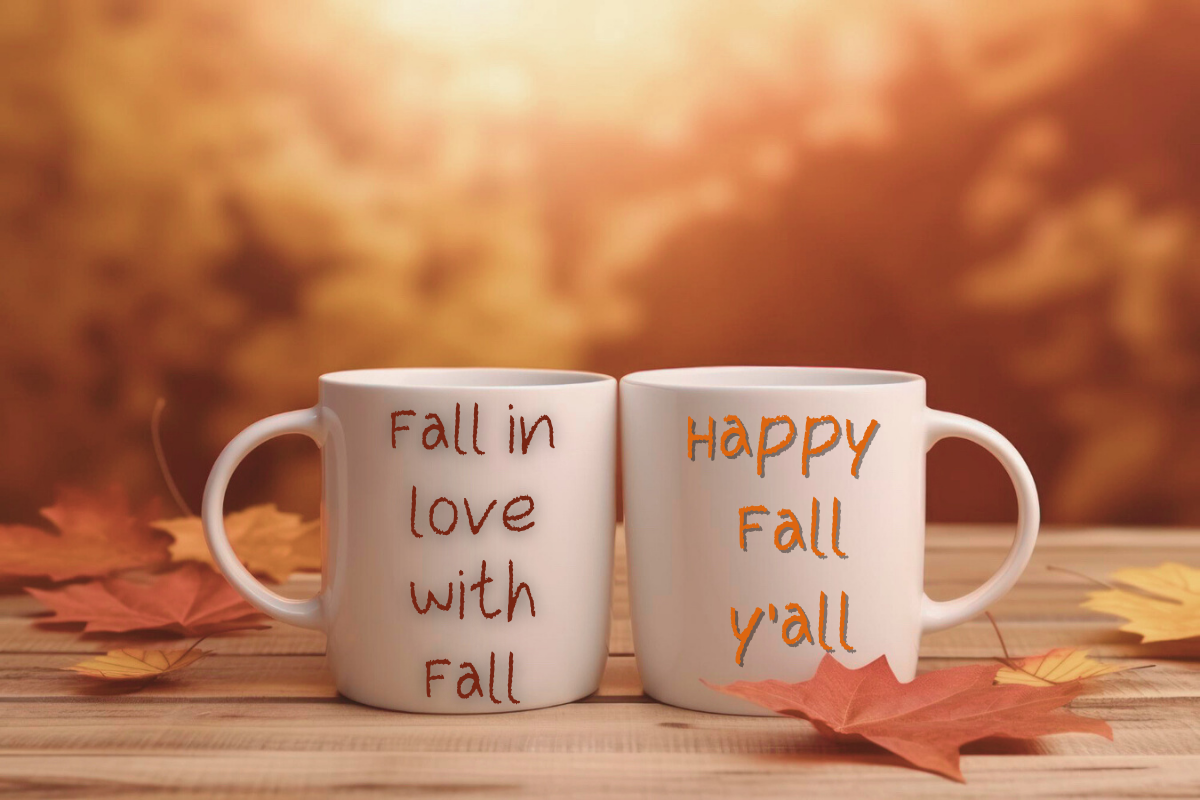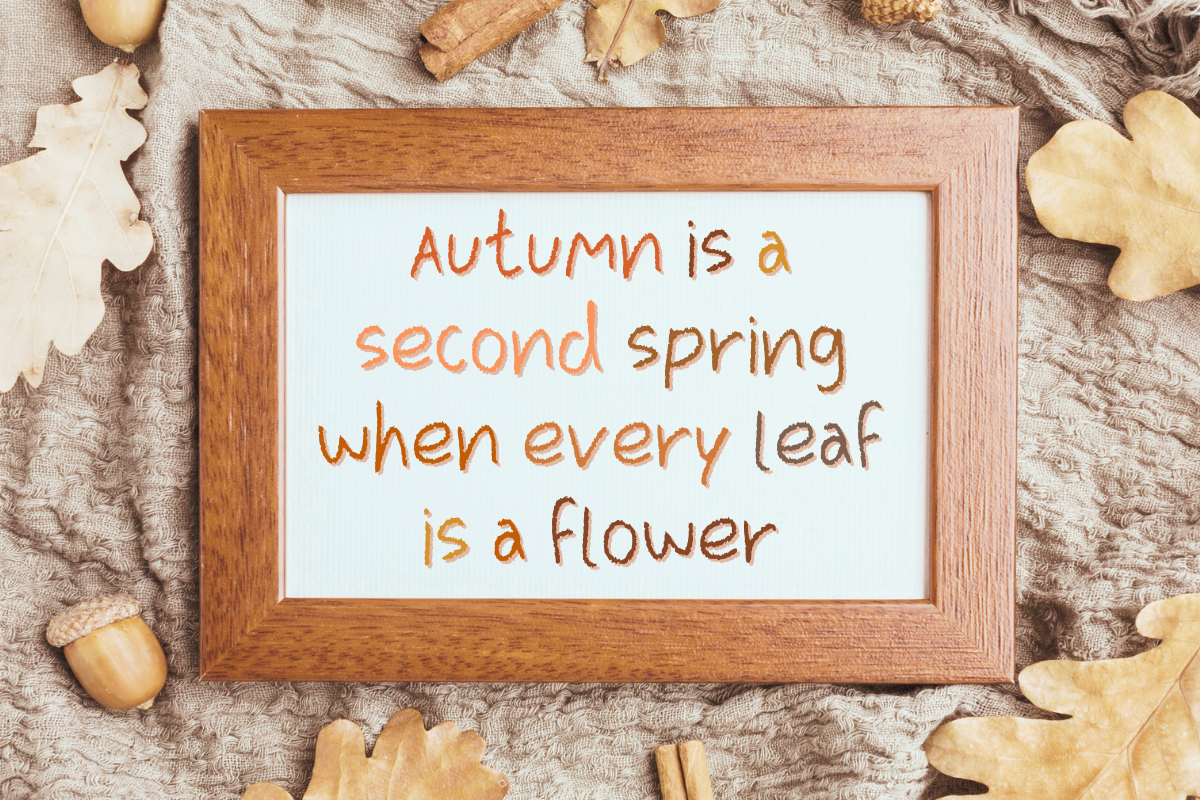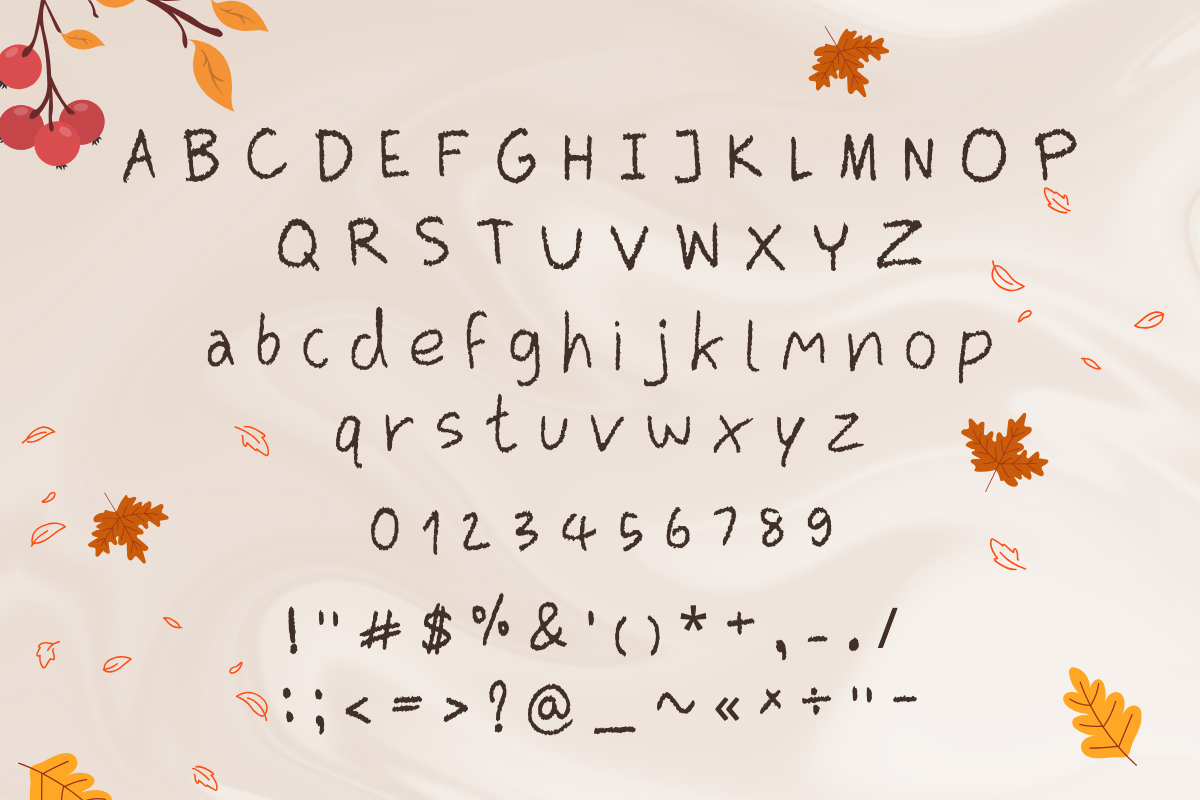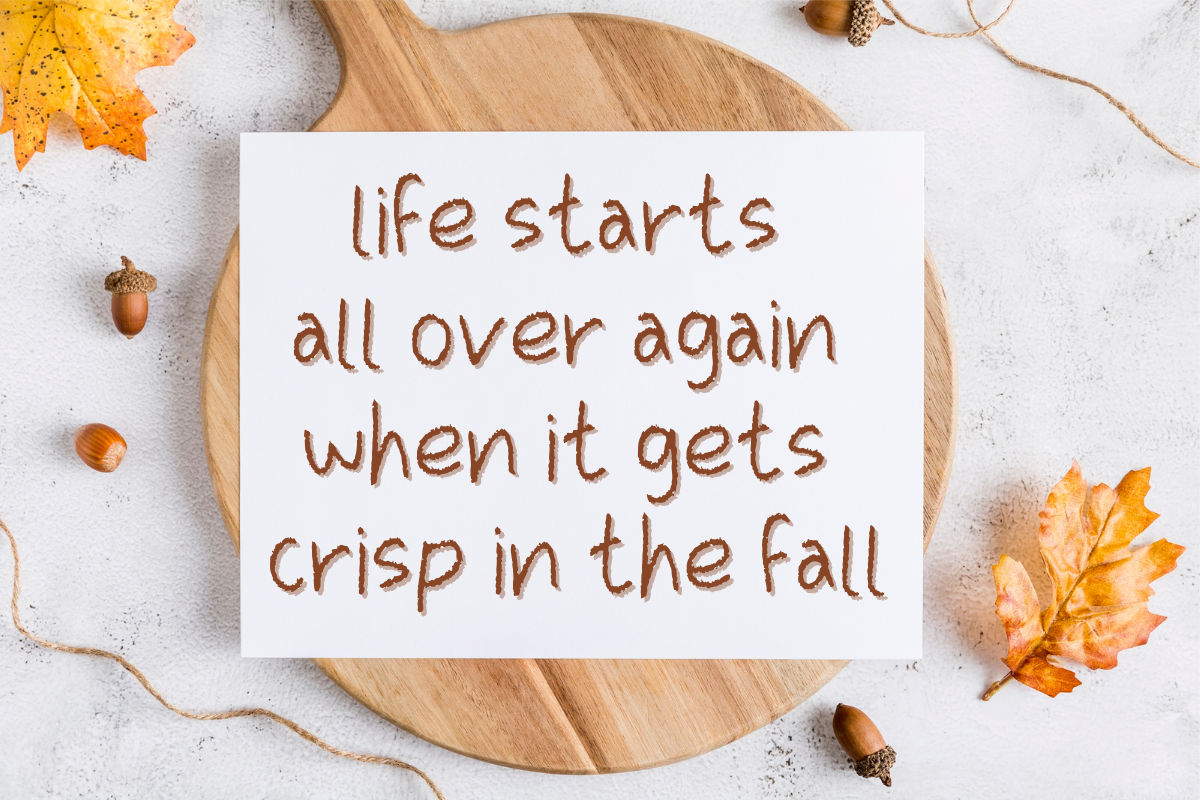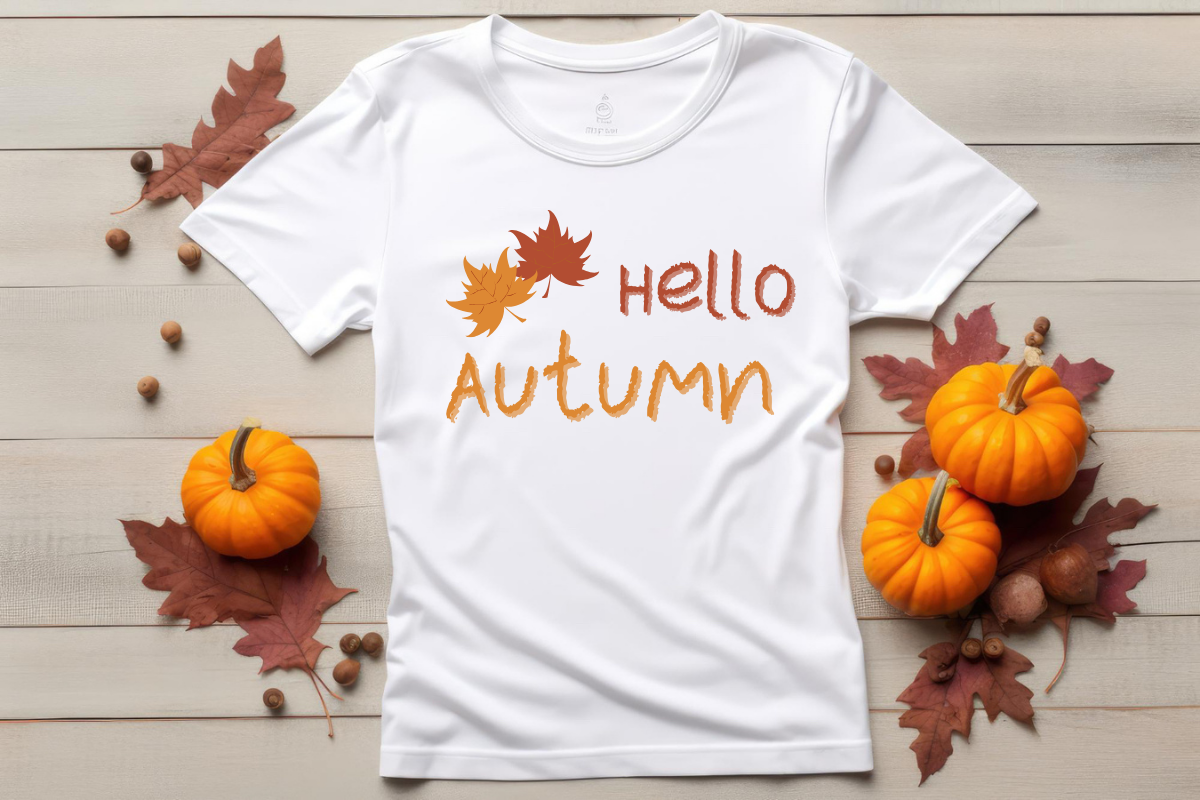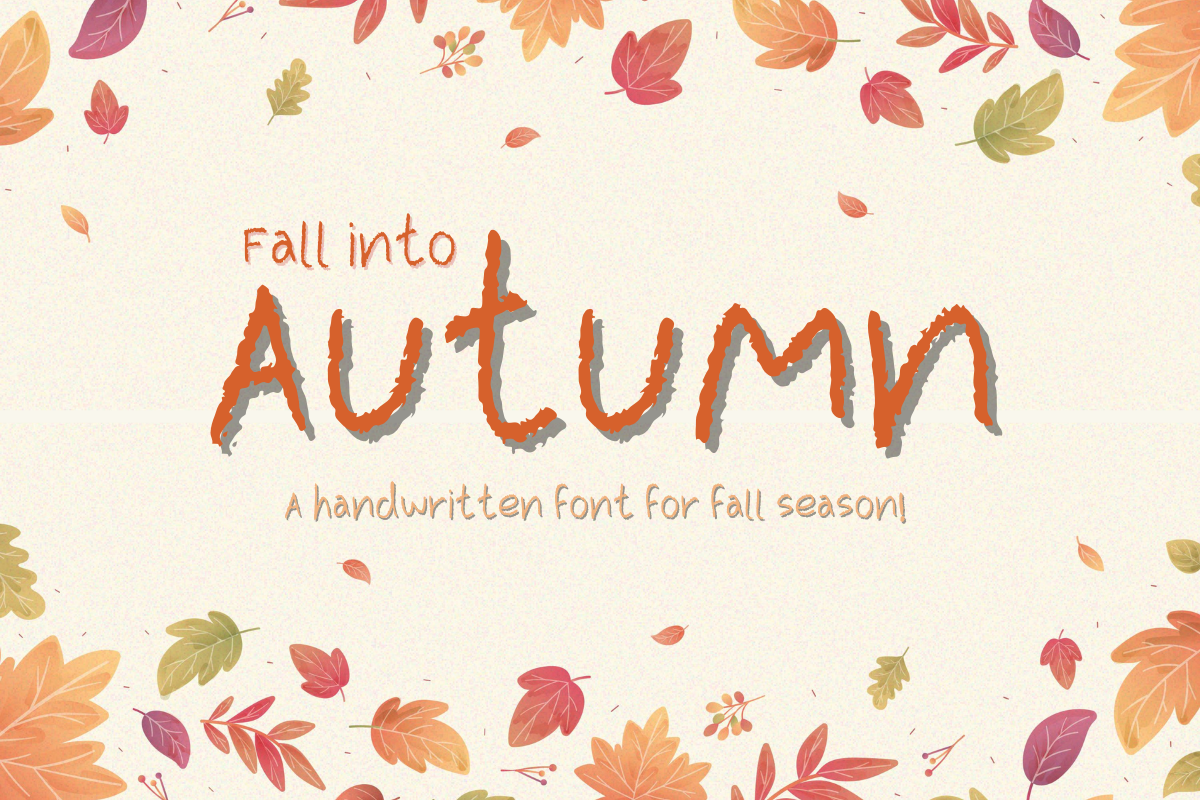
Autumn - A Handwritten Font
Item Details AUTUMN FONT A cute handwriting font for Fall season
AUTUMN is perfect for: cricut crafts, logos, branding, greeting cards, procreate, shirts, posters, social media, planner prints and more!